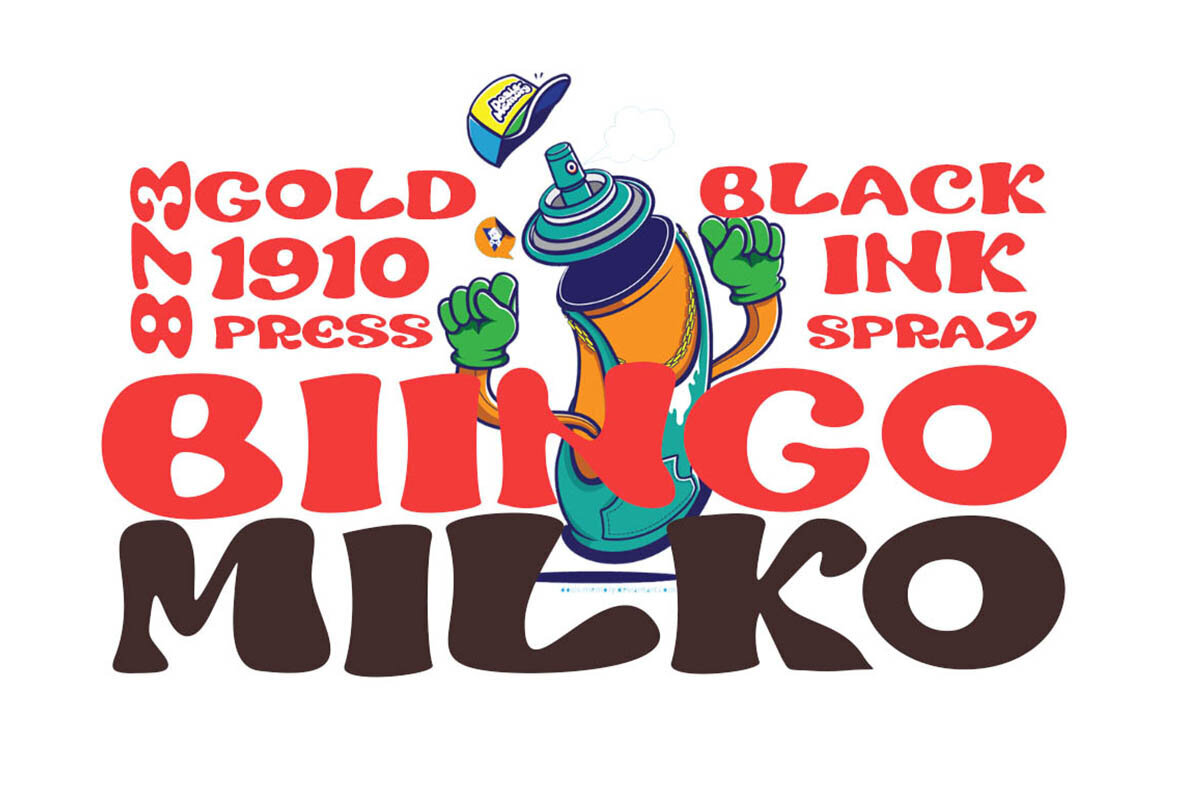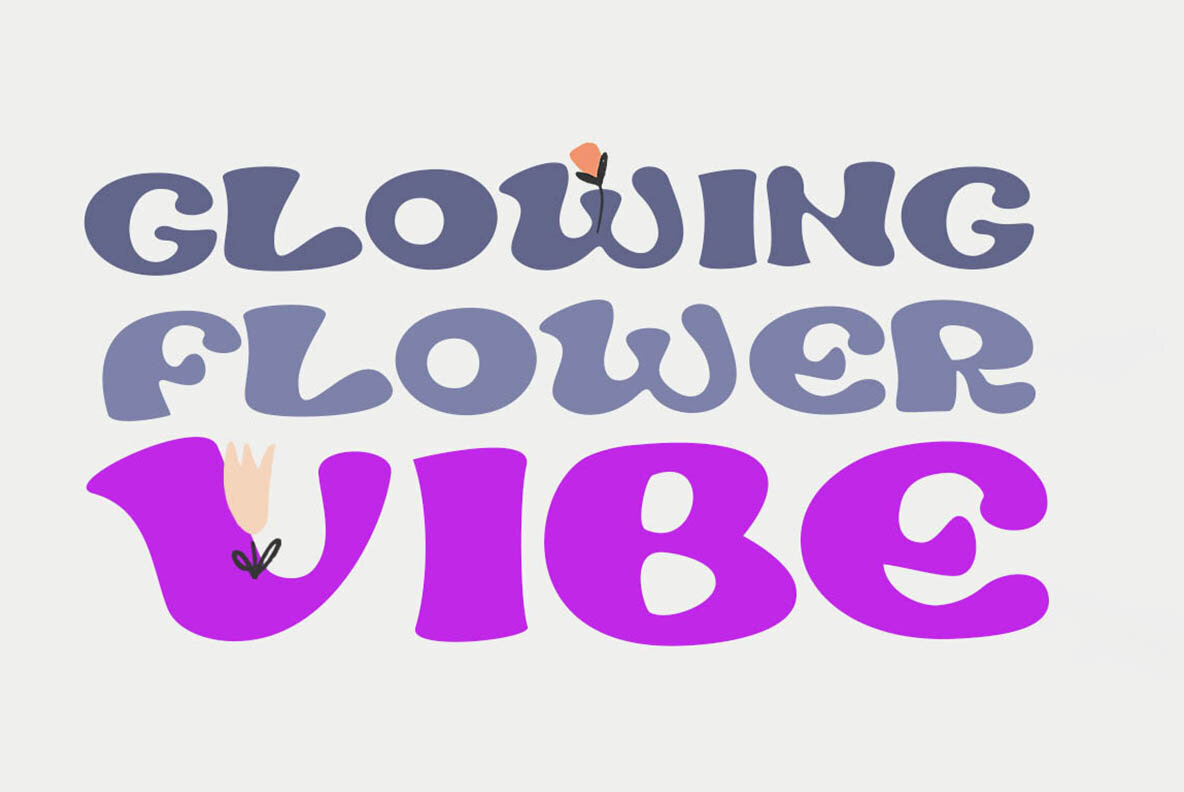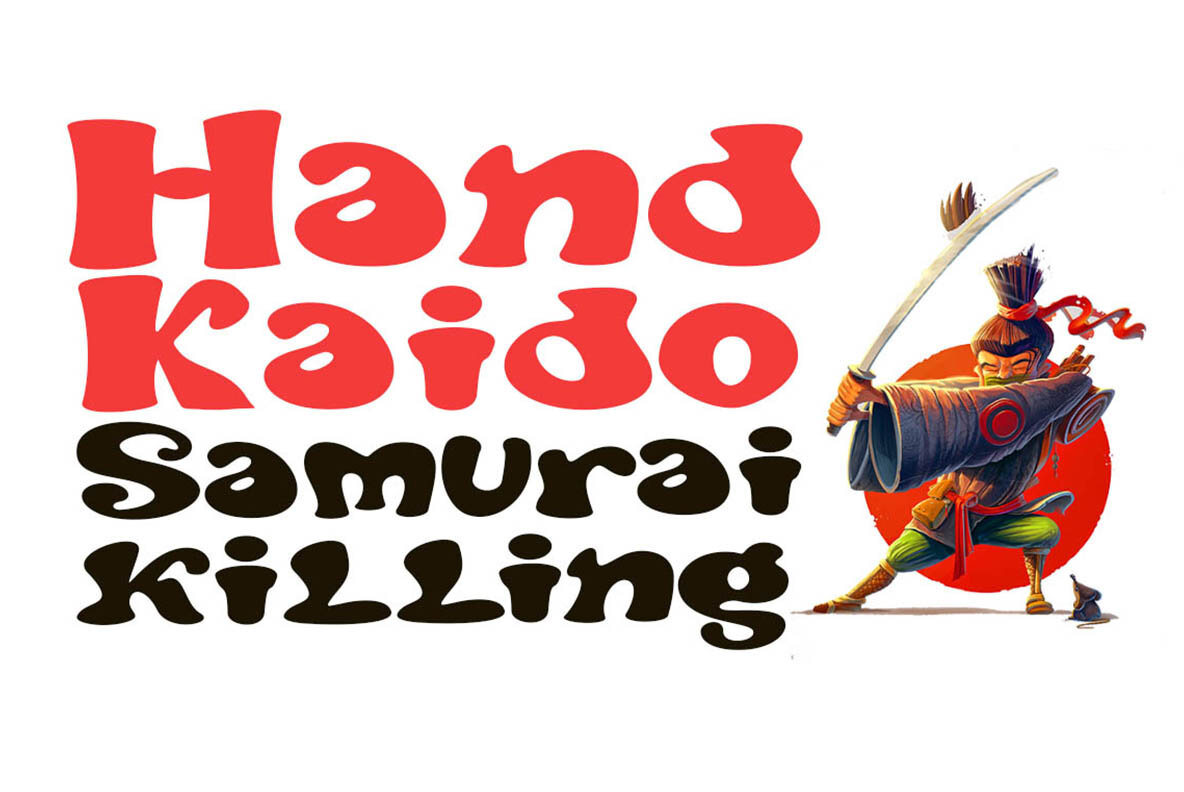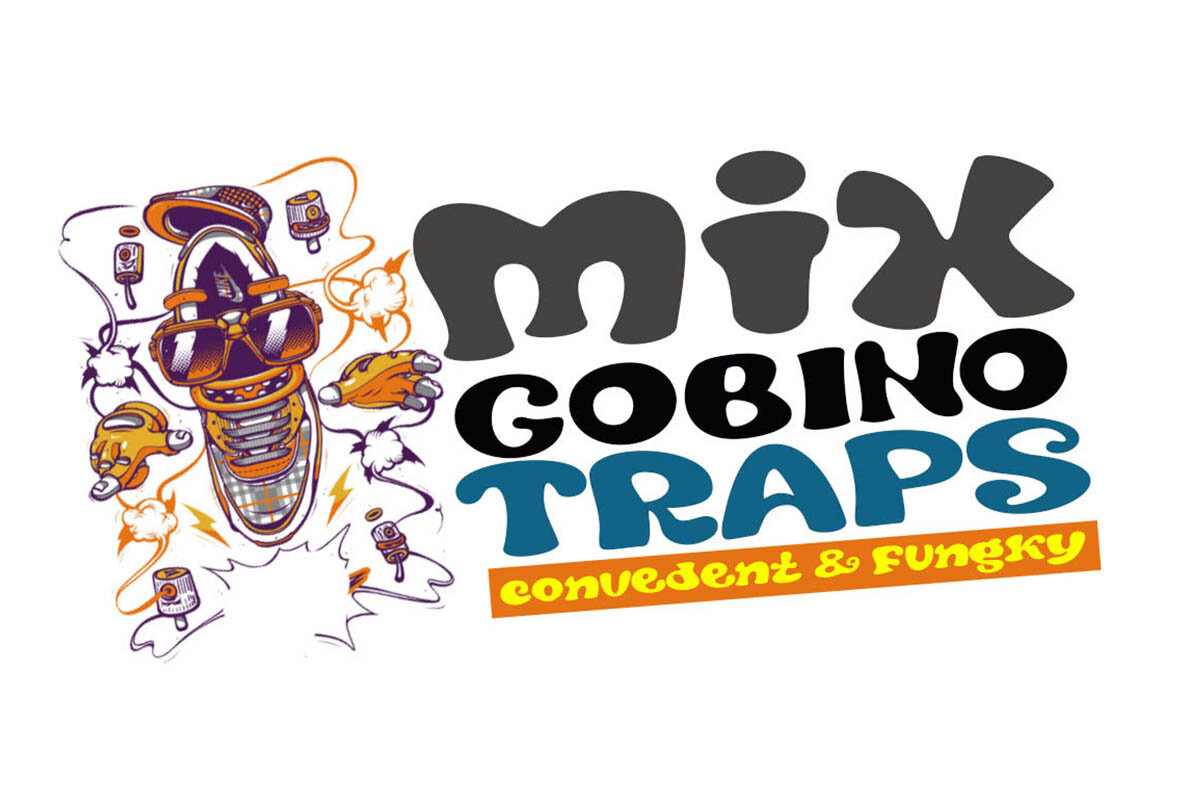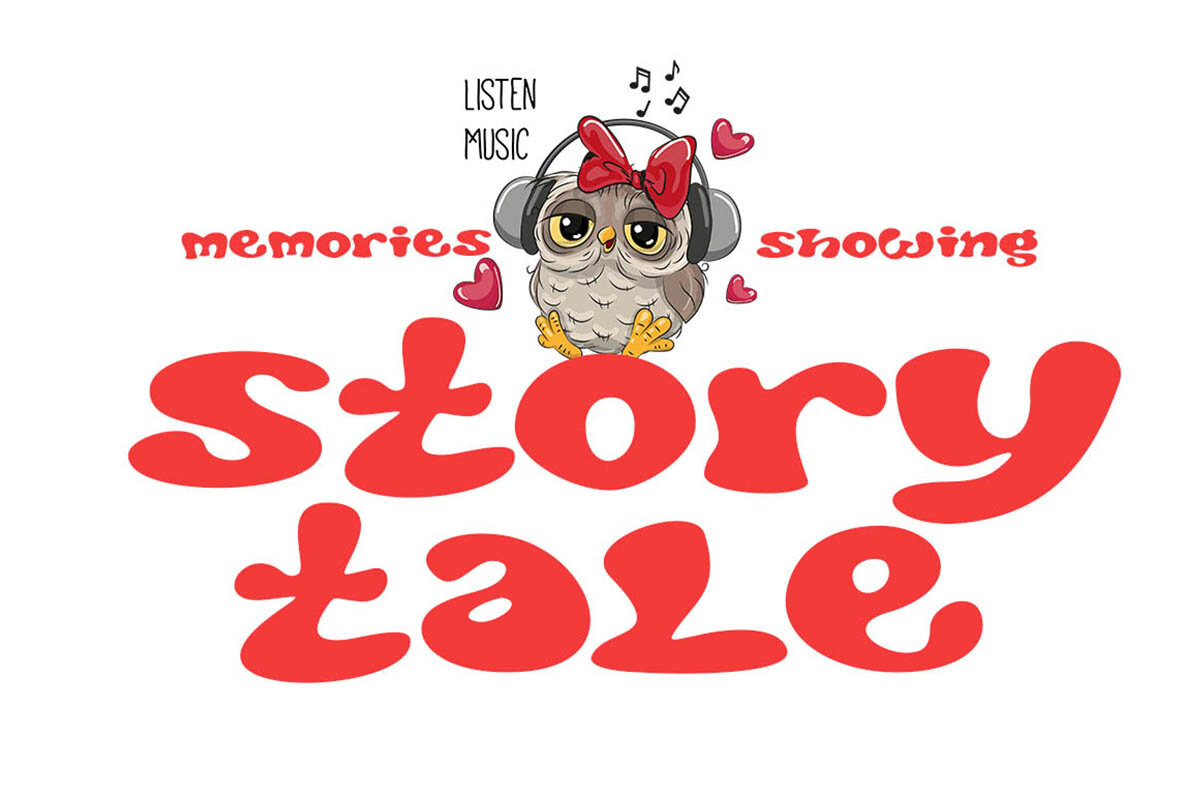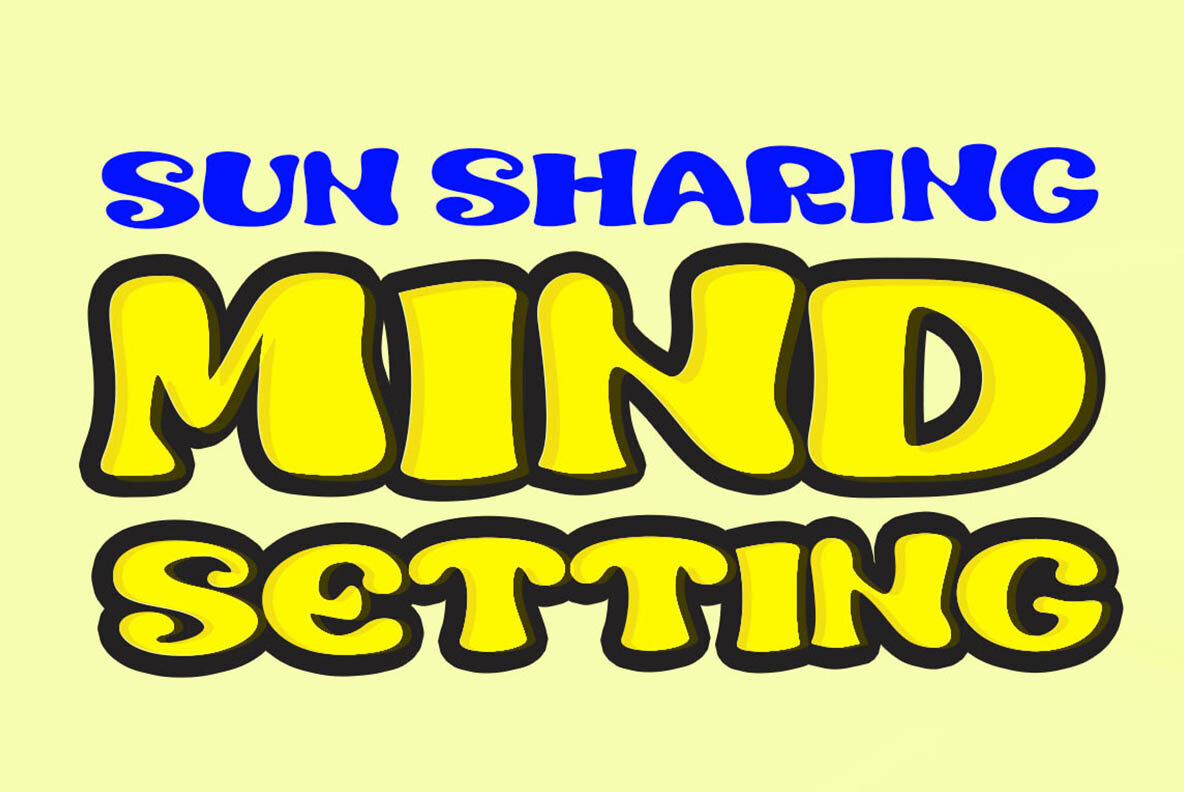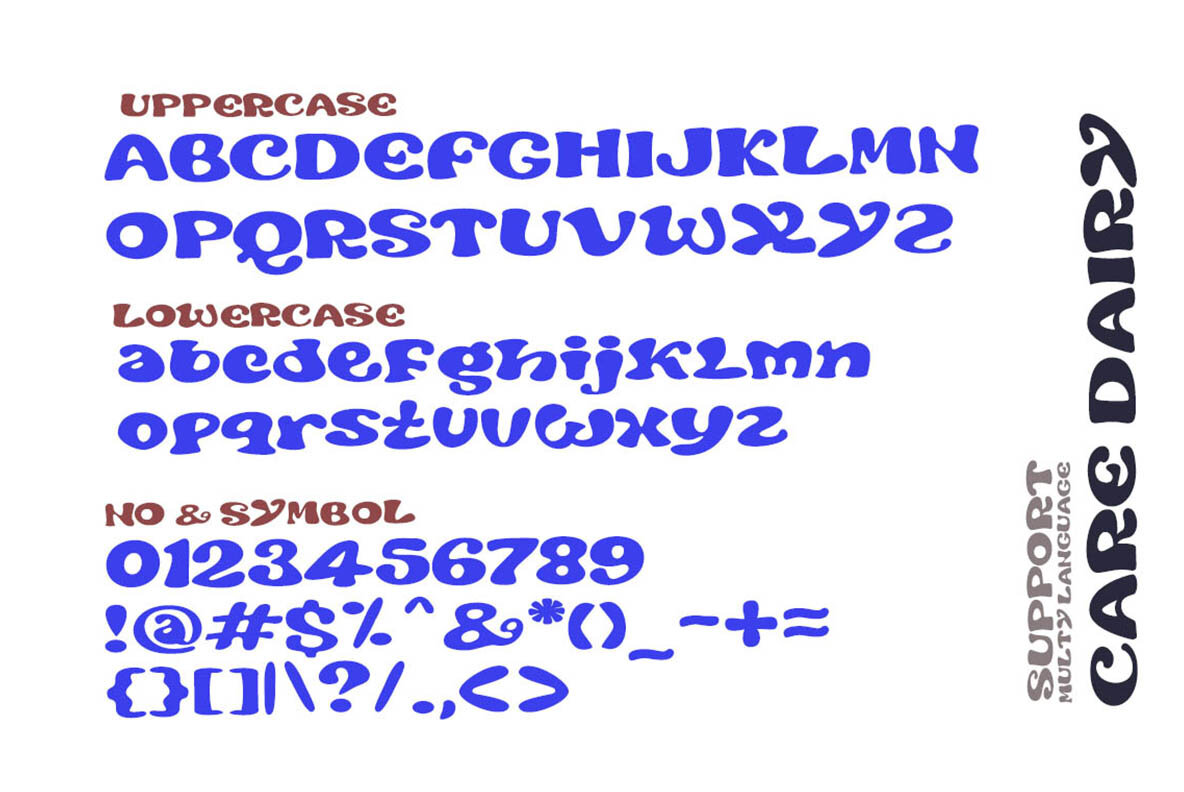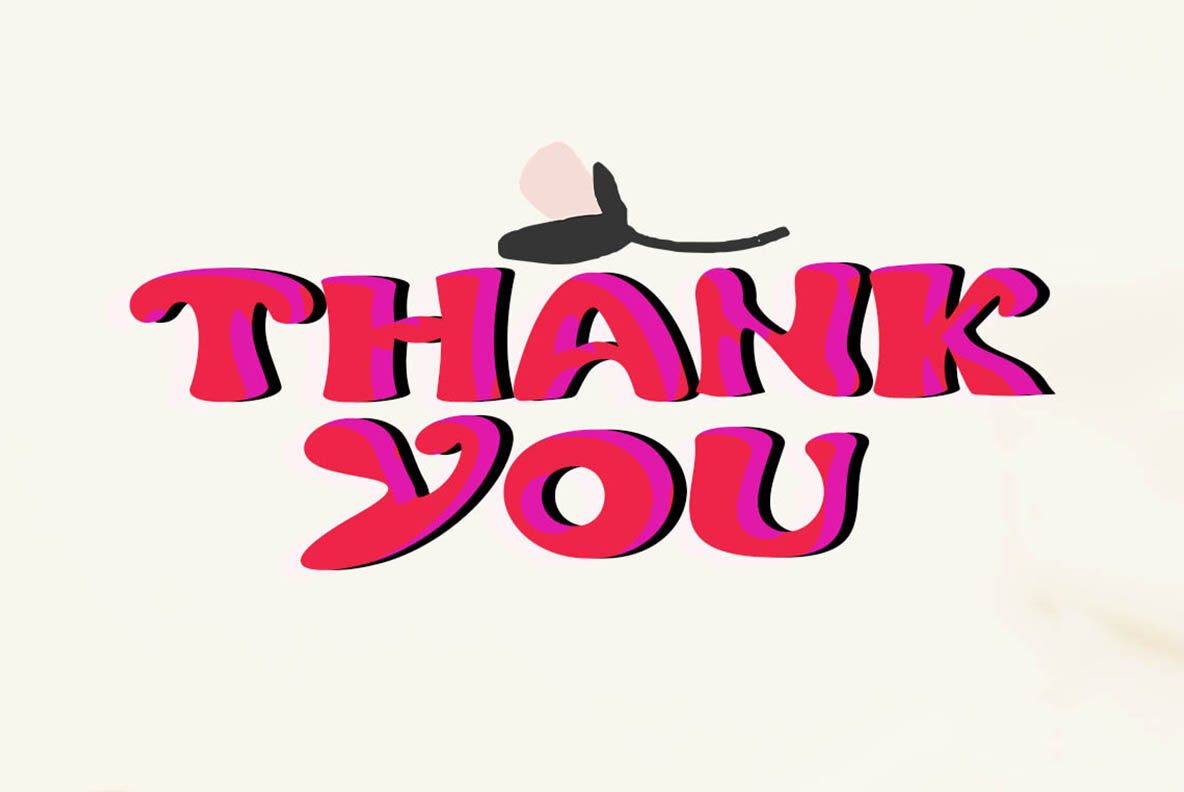
Care Dairy Font
Care Dairy Regular
Care Dairy is a playful and charming display font with a unique comic style. Perfect for adding a whimsical touch to your design projects.
Ideal for:
- Logos
- Stickers
- Packaging design
- Cricut projects
- Headlines
- Brand identity
- T-shirt or apparel design
- Posters
- Magazines
- Books
- Social media content (YouTube, Instagram)
- Websites
- Various creative design projects